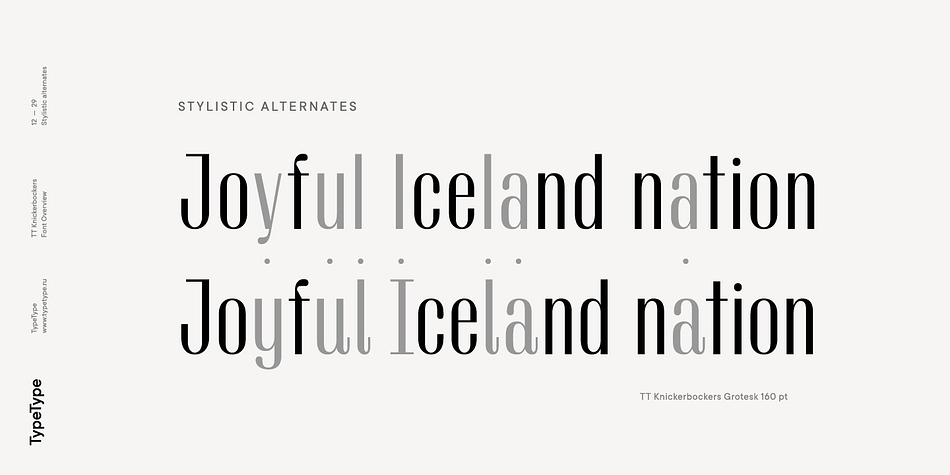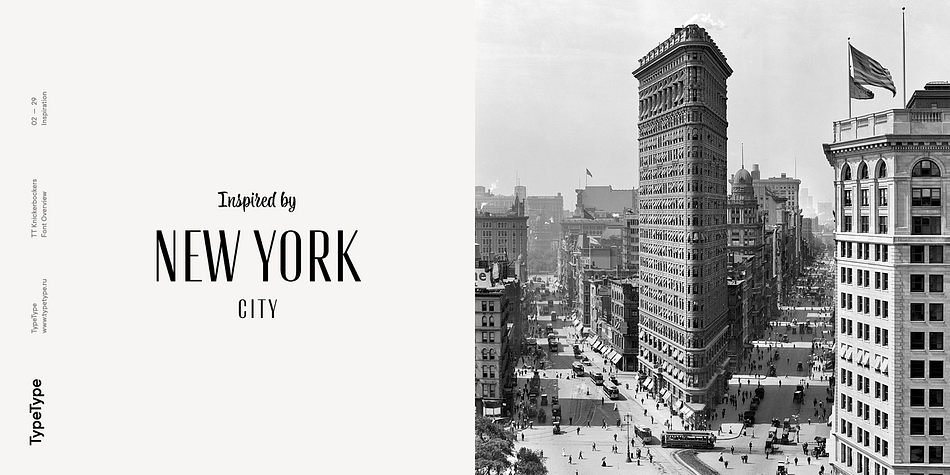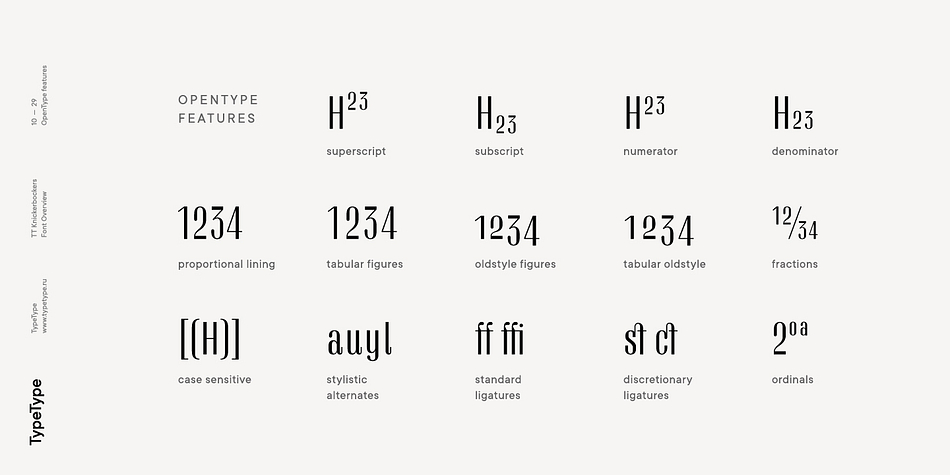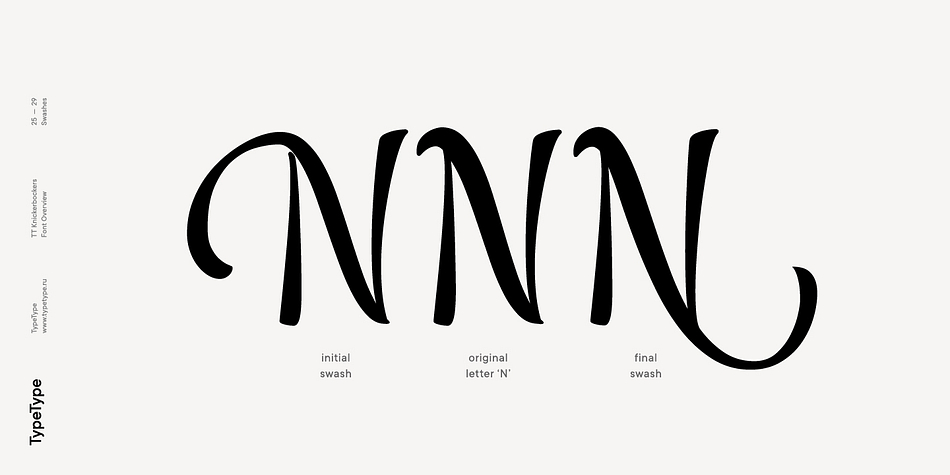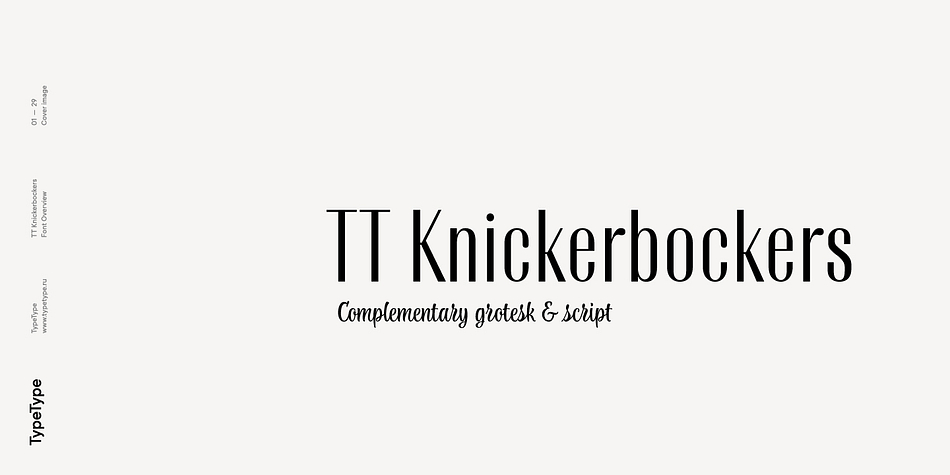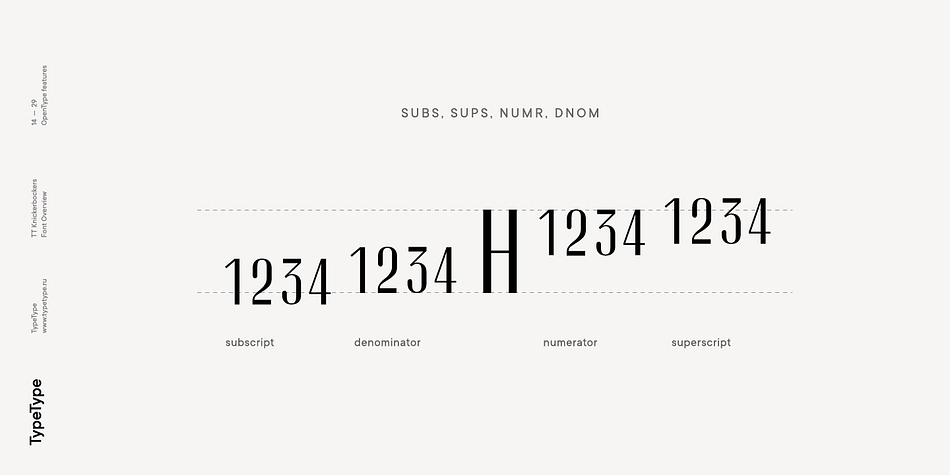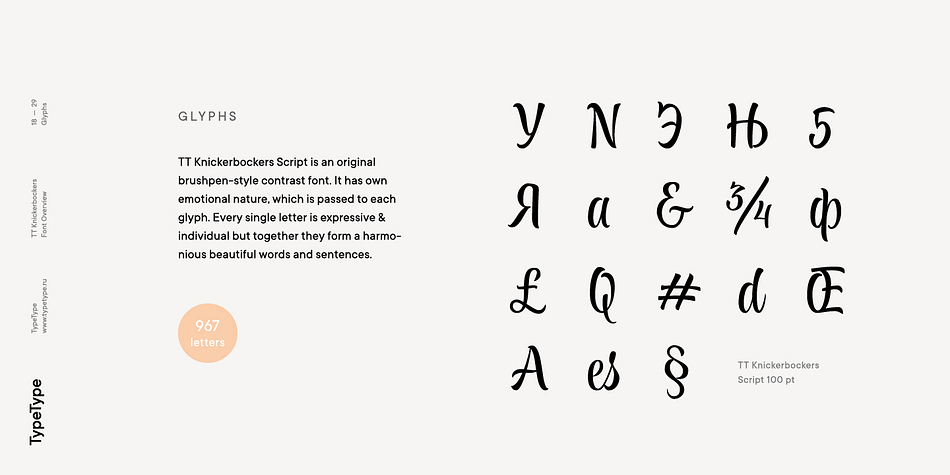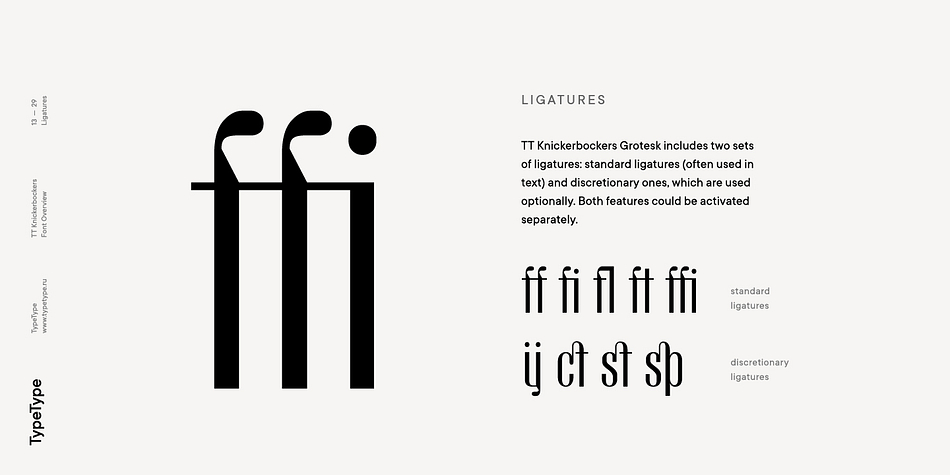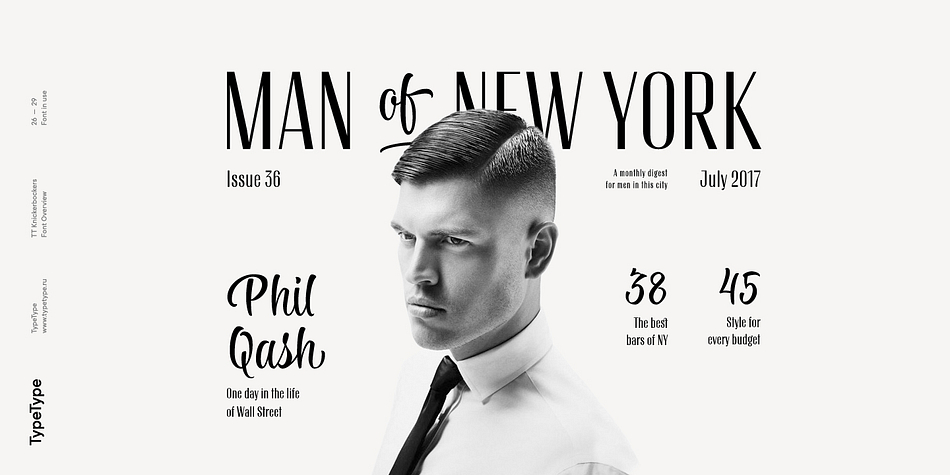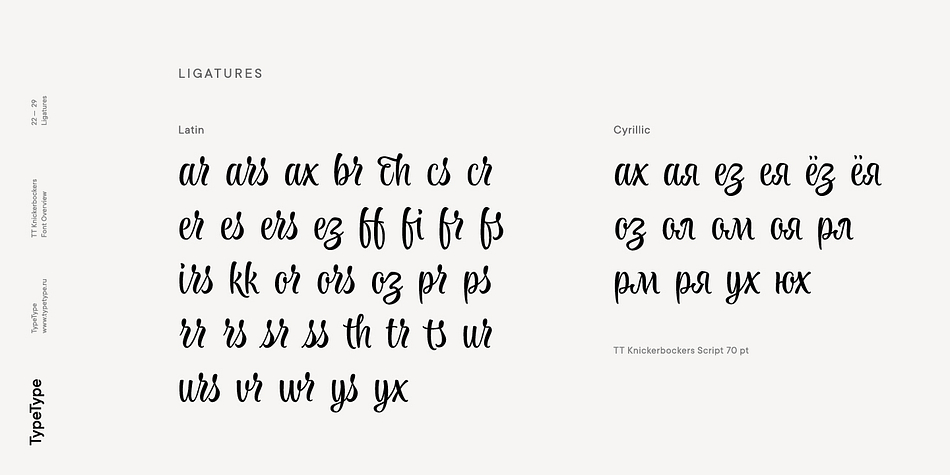
TT Knickerbockers is a brush script, display sans and sans serif font family. This typeface has two styles and was published by Typetype.
TT Knickerbockers is a contrasting pair of fonts that continues our project series dedicated to different cities. The new project is dedicated to New York with its multiculturalism, historicity, creativity, energy, and to its inhabitants. TT Knickerbockers Grotesk symbolizes the monumentality of New York expressed in both its traditional historic architecture and skyscrapers. Energy, constant movement and the round-the-clock life of New York — all this is reflected in our TT Knickerbockers Script.
TT Knikerbockers Grotesk is a narrow contrast sans-serif with characteristic elements sending us back to the 19th century. There’s also a reference to antiqua fonts to be noticed in the font: where in traditional antiqua there would be serifs, TT Knickerbockers Grotesk features a straight stroke ending, and traditional drops (finals, tails and ears) are substituted with rounded strokes. In TT Knikerbockers Grotesk you will find unusual characters, stylistic alternatives and ligatures. The following OpenType features are implemented: ordn, case, frac, sups, sinf, numr, dnom, onum, tnum, pnum, liga, dlig, salt, ss01.
TT Knikerbockers Script is a bright and at the same time a little restrained brushpen script with a slight touch of aristocracy. TT Knikerbockers Script consists of 967 characters and also contains a huge number of contextual alternatives and ligatures. For all lowercase and uppercase letters of basic Latin and Cyrillic alphabets we have drawn 236 swashes which, depending on the context, can appear both at the beginning and at the end of a letter. Do not forget to enable OpenType support and enjoy all the opportunities that the typeface provides and its built-in features: ordn, frac, case, sups, sinf, numr, dnom, onum, tnum, pnum, calt, swsh, liga.
The idea of TT Knikerbockers Grotesk is based on Nadezhda Polomoshnikova’s diploma project, and the idea of TT Knikerbockers Script is based on Yuliana Morgun’s original brushpen-style writing.